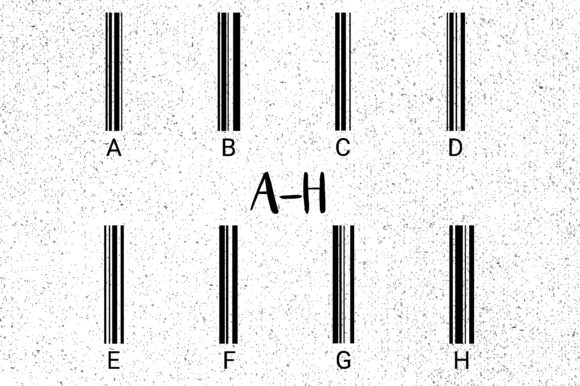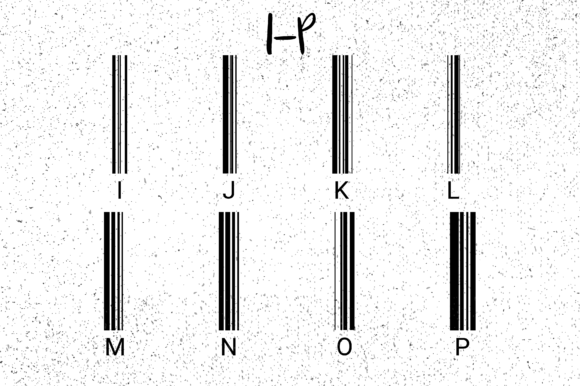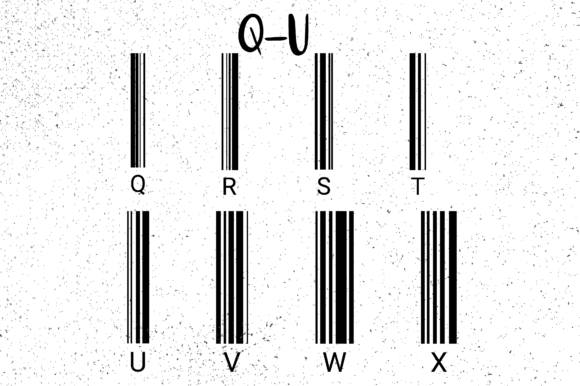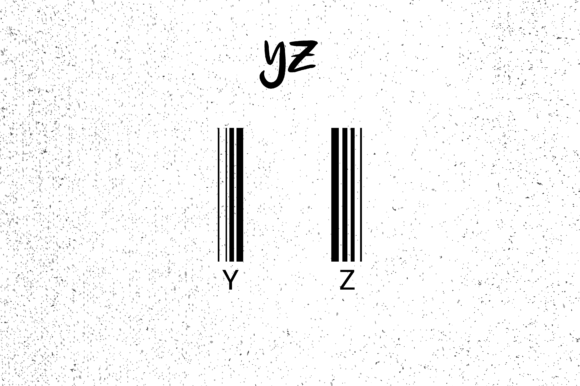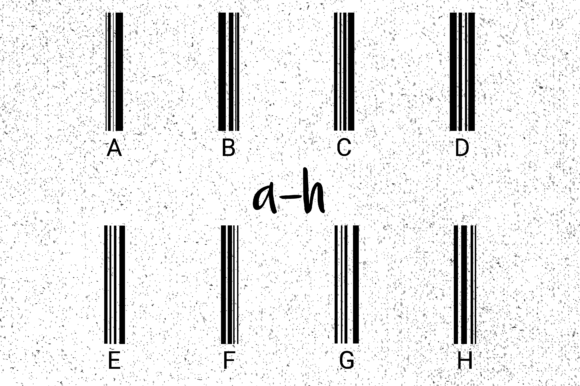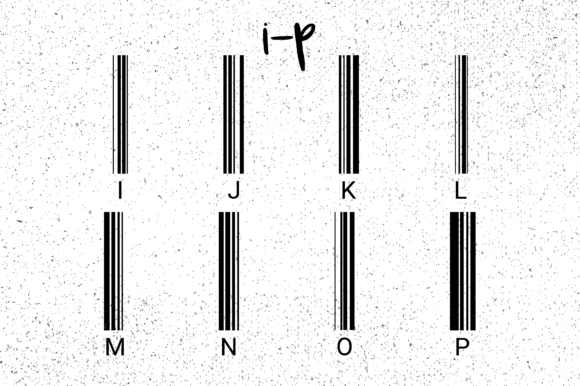
The Design Powerhouse: Unlocking Efficiency with Barcode Font
Imagine you’re working on a project, and you need to create a mockup for a new product. You’ve got the design elements, the colors, and the layout, but there’s one crucial detail that’s holding you back: the barcode. It’s a small aspect, but it can make or break the overall look and feel of your design. That’s where the Barcode Font comes in – a game-changing dingbats font that streamlines the design process and saves you precious time.
The Barcode Font is a nifty tool that allows you to easily integrate a barcode into your graphic software or office suite. By simply selecting the font and typing in the relevant numbers, you can achieve a professional-looking barcode that elevates your design to the next level. As a designer, you’ll appreciate the efficiency and flexibility that Barcode Font offers, making it an invaluable addition to your toolkit.
Barcode Font Key Features
- Unique Characteristics: Includes advanced features like human-readable text, check digits, and interleaved 2 of 5 (ITF) support for enhanced barcode functionality.
Barcode Font Review
Overall, I was quite impressed with the Barcode Font. It’s a simple yet effective solution for creating barcodes that are easy to read and scan.
- The font is highly customizable, allowing you to adjust the size, color, and orientation of the barcode to fit your needs.
- It’s easy to use, even for those without extensive design experience. The font is straightforward to apply and can be used in a variety of applications.
- The barcode itself is clear and easy to read, making it perfect for use on packaging, labels, or any other materials where a quick scan is necessary.
- The font may not be suitable for all types of barcodes, such as those requiring a specific level of precision or detail.
- It may not work as well in certain software applications, such as those with limited font support.
- The font can be quite large, which may be a concern for designers working with limited space.
Overall, I’d say the Barcode Font is a solid choice for anyone needing to create easy-to-read barcodes. While it may have some limitations, its ease of use and customization options make it a great solution for many designers.
Barcode Font Practical Application Guide
Tips for Getting the Most Out of Barcode Font
Some tips to get the most out of your barcode font include:
– Choosing the right barcode type for your needs (e.g. Code 128, QR code).
– Adjusting font size and style for optimal readability.
– Testing your barcode in different environments (e.g. on a printer, on a screen).
Common use cases for barcode fonts include:
– Inventory tracking and management.
– Product labeling and packaging.
– Shipping and logistics.
– Retail and point-of-sale applications.
There are several types of barcode fonts available, including:
- Code 39: A popular barcode font that can encode 43 characters, including letters, numbers, and special characters.
- Code 128: A high-density barcode font that can encode 128 characters, including letters, numbers, and special characters.
- UPC/EAN: A barcode font used for Universal Product Codes and European Article Numbers.
- QR Code: A two-dimensional barcode font used for quick response codes.
Can I customize the appearance of a Barcode Font?
Yes, you can customize the appearance of